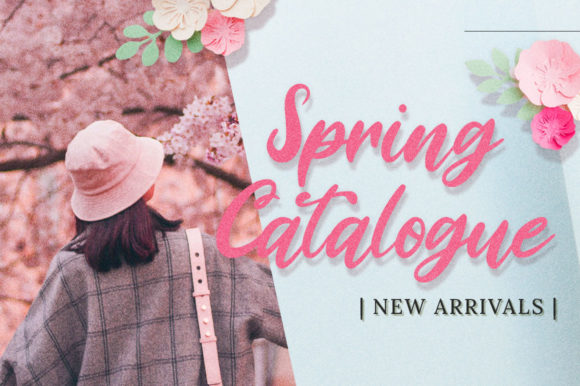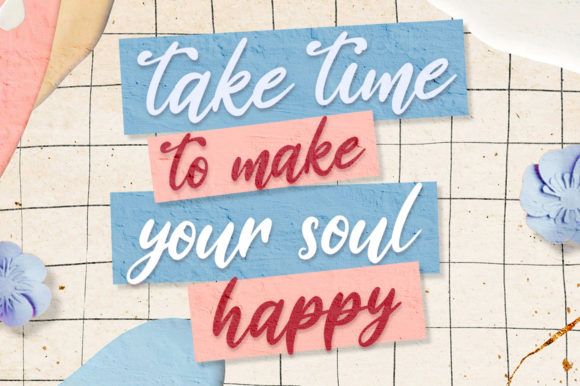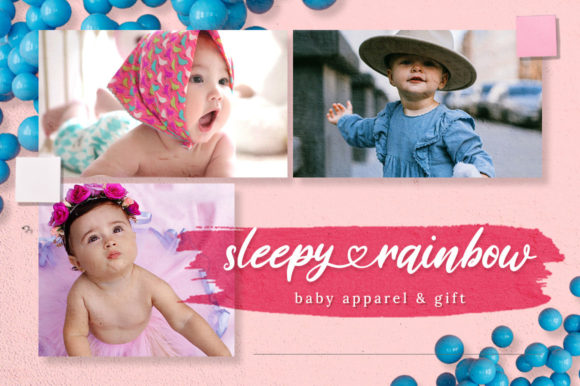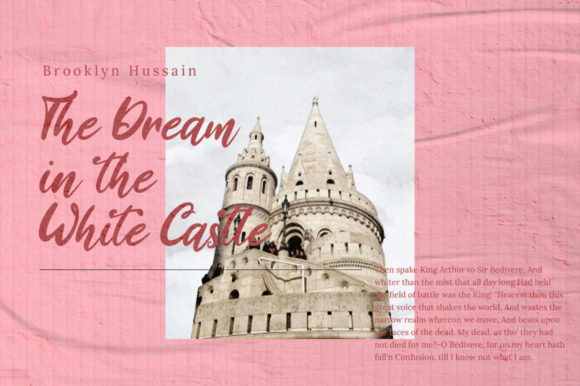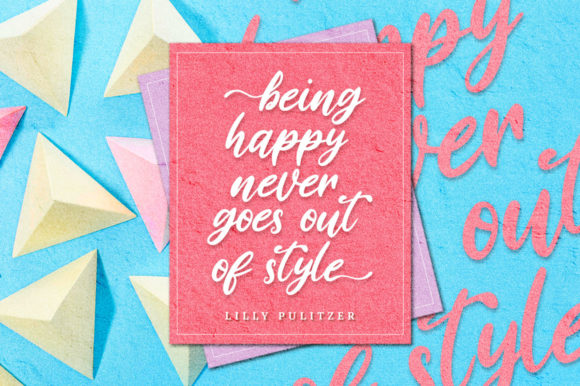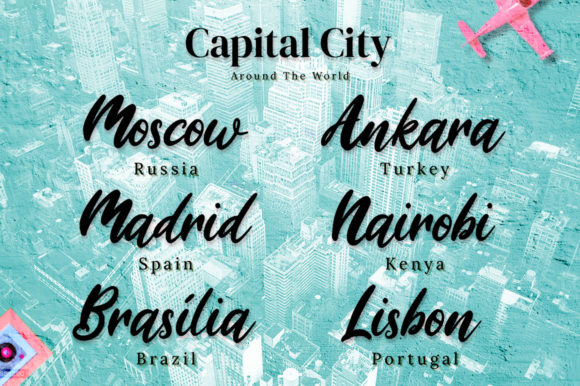
Introducing Ali Ana Font: Elevate Your Designs with Elegant Script
Are you on the hunt for a font that exudes elegance, sophistication, and a touch of modern flair? Look no further than Ali Ana Font, a stunning script font designed to bring a timeless classic feel to your projects. Inspired by the beauty of traditional calligraphy, Ali Ana strikes the perfect balance between contemporary style and impeccable form.
The Perfect Balance: Not Too Thin, Not Too Thick
One of the standout features of Ali Ana Font is its masterful balance of thickness and thinness. Unlike some script fonts that can veer too far into the realm of being too thin or too thick, Ali Ana finds that sweet spot in between. This balance ensures that your text remains highly legible while still conveying a sense of luxury and refinement. Whether you’re working on a branding project, a wedding invitation, or a packaging design, Ali Ana Font provides the perfect foundation for your creative vision.
Variety and Versatility: A Font for Diverse Projects
Ali Ana Font isn’t just about aesthetics; it’s also incredibly versatile. The font comes with a range of glyphs and swashes, thanks to its PUA (Private Use Area) encoding. This means that you can easily access and incorporate a variety of flourishes and decorative elements into your designs. Whether you’re looking to add a touch of whimsy or maintain a more formal tone, Ali Ana provides the flexibility to achieve your desired look with ease.
Inspired by Timeless Classic Calligraphy
Ali Ana Font draws its inspiration from the world of classic calligraphy, where the art of beautiful handwriting is revered. This inspiration is evident in the font’s fluid strokes, elegant connections, and the overall sense of movement it conveys. However, Ali Ana also infuses this classic feel with a contemporary atmosphere, making it highly suitable for modern design projects. This blend of old and new ensures that your designs stand out with a unique and sophisticated charm.
Designed to Enhance the Beauty of Your Projects
The primary goal behind the creation of Ali Ana Font was to provide designers and crafters with a tool that could elevate the beauty of their projects. Whether you’re working on a professional branding campaign, a personal craft project, or anything in between, Ali Ana is designed to enhance your work. Its elegant and contemporary style ensures that your designs are not only visually appealing but also convey a sense of sophistication and class.
Who Can Benefit from Ali Ana Font?
Ali Ana Font is an invaluable resource for a wide range of designers and crafters. Graphic designers working on branding and advertising projects will find its elegant and versatile style highly beneficial. Stationery designers can use Ali Ana to create beautiful wedding invitations, greeting cards, and other paper goods. Crafters who specialize in making custom signs, banners, and DIY projects will also appreciate the font’s readability and aesthetic appeal.
| Font Name | Ali Ana Font |
| Author | ibeydesign |
In conclusion, Ali Ana Font is a remarkable addition to any designer’s toolkit. Its elegant script, balanced style, and versatility make it an excellent choice for a multitude of projects. With its PUA encoding, designers can easily access a wide range of glyphs and swashes, allowing for endless creativity and customization. Inspired by timeless classic calligraphy but infused with a contemporary atmosphere, Ali Ana Font is poised to elevate the beauty of your designs and set them apart in a crowded digital landscape.